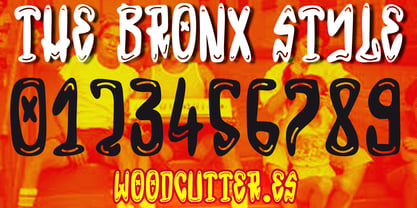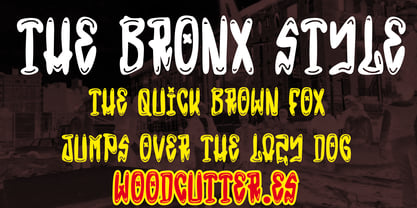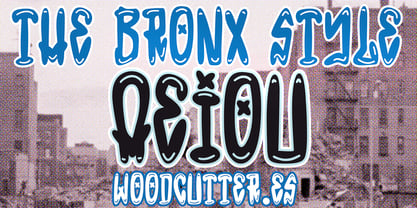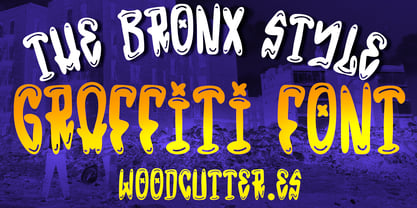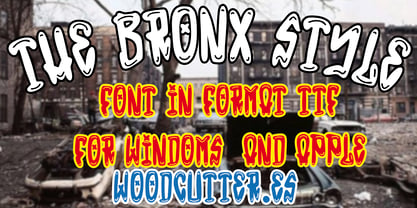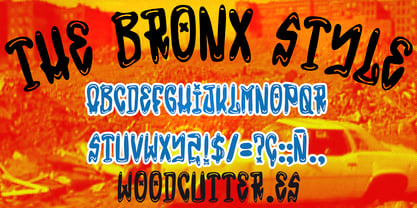
The Bronx Style
by Woodcutter
The The Bronx Style Font Family was designed by Jordi Manero and published by Woodcutter. The Bronx Style contains 1 styles. More about this family
"The Bronx Style" is an all-uppercase font blending the essence of urban graffiti with a subtle Chicano touch. Its decorated, rounded letters convey a vibrant and fluid character, ideal for street-style or cultural projects. Each character features unique details that evoke the aesthetic of New York neighborhoods, merging modernity with tradition. Its balanced yet dynamic design makes it perfect for posters, logos, or covers related to urban culture, music, or contemporary art. "The Bronx Style" stands out for its strong and authentic personality.
Designers: Jordi Manero
Foundry: Woodcutter